Either ∣ Other is a fictional London-based concept store that sells clothes and collectible design items, hosts talks and art shows. In a course delivered at Werkstatt online school, Artem Matyushkin invited his students to create this store’s brand identity. Leya Chechik opted for Loos in her version of Either ∣ Other, having used it for its navigation system, banners, and the project’s merchandise.
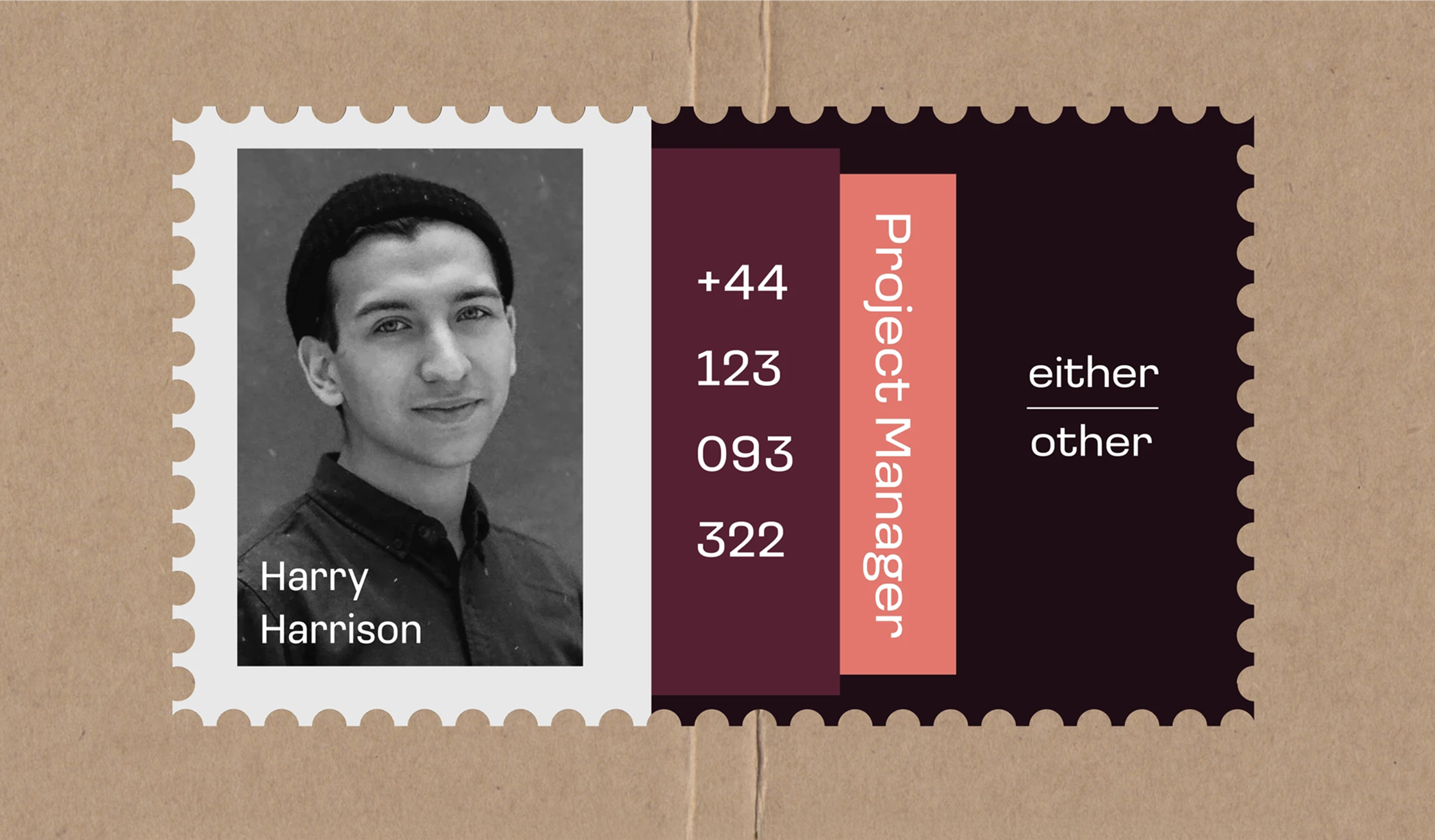
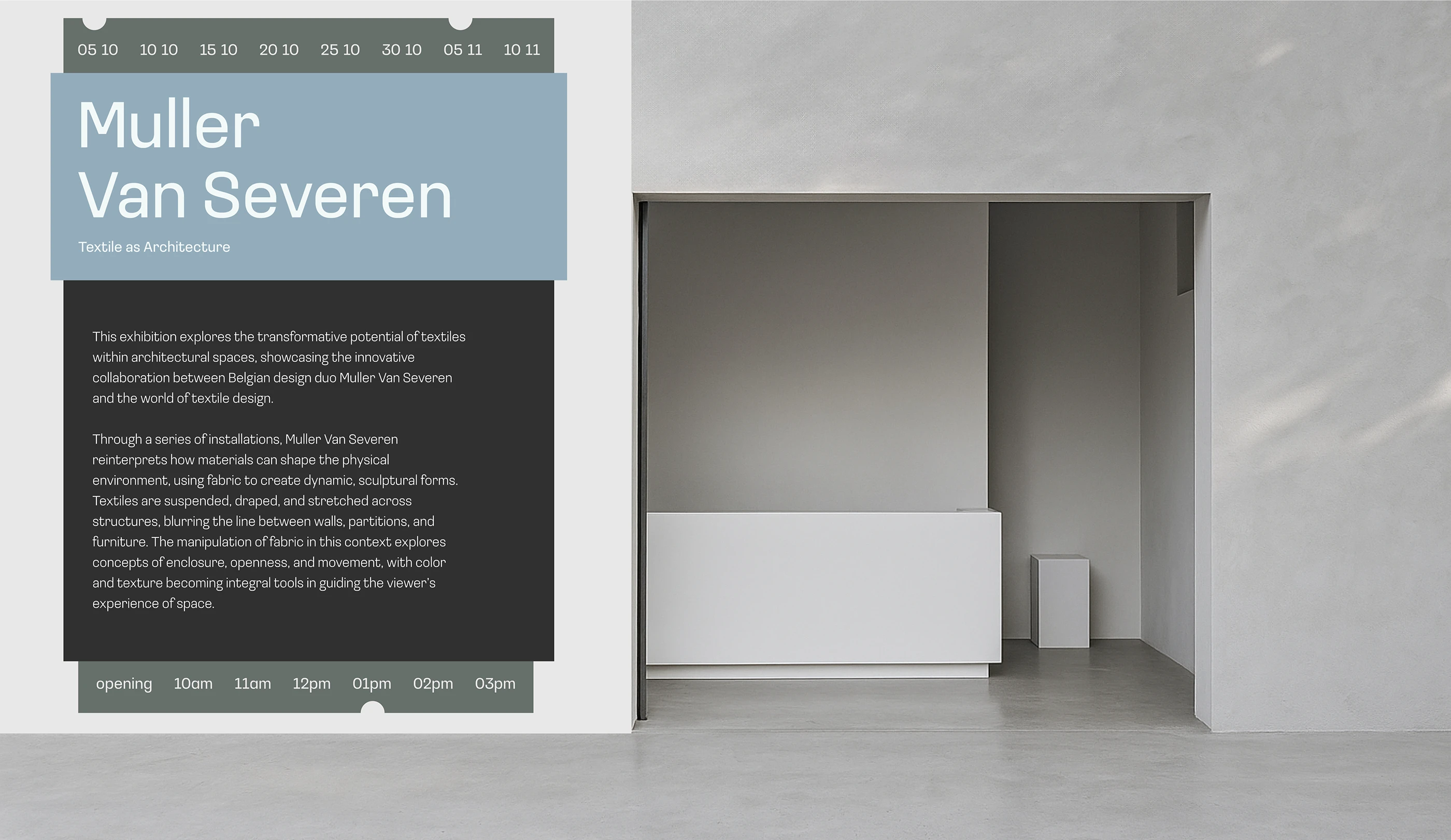
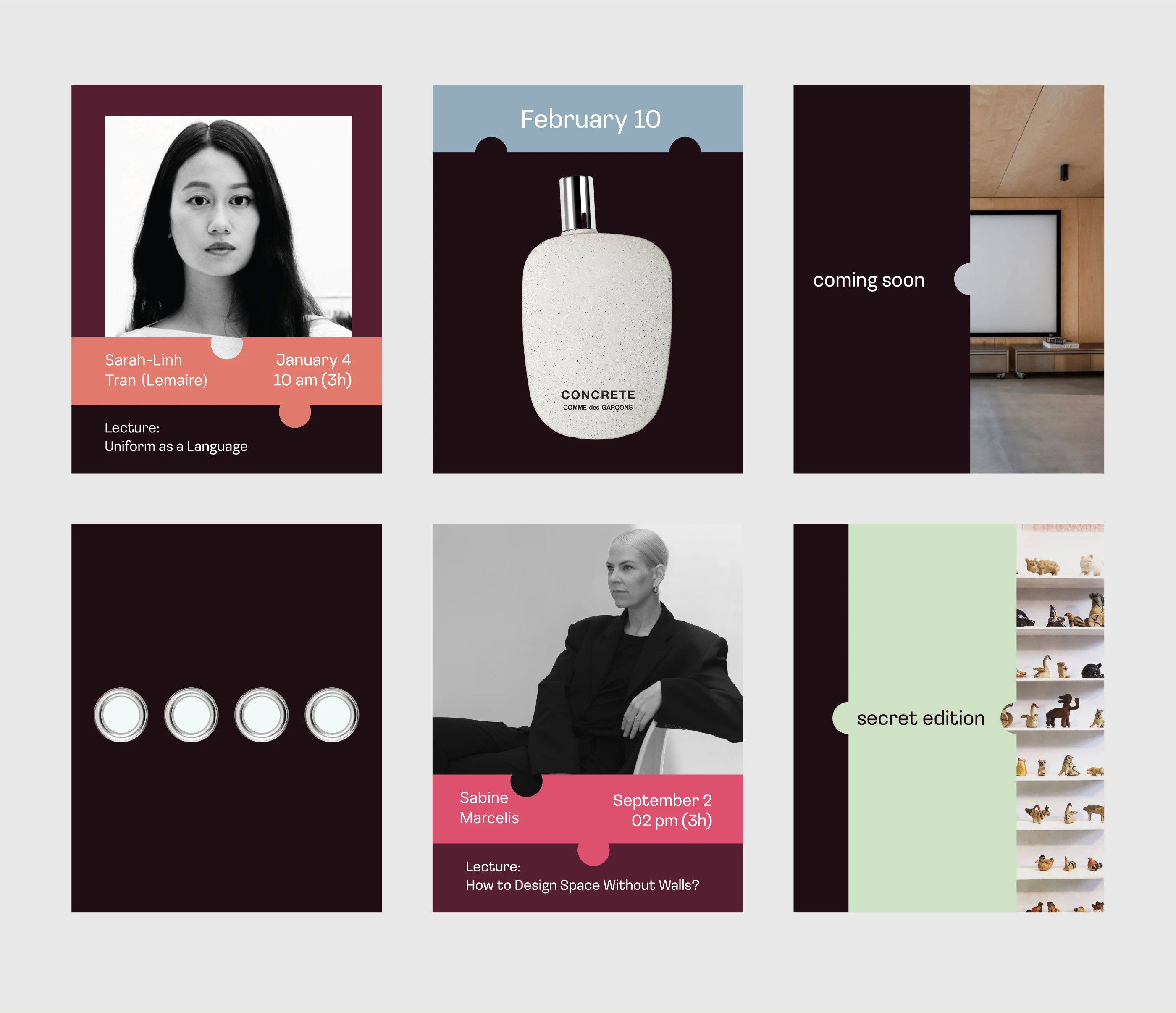
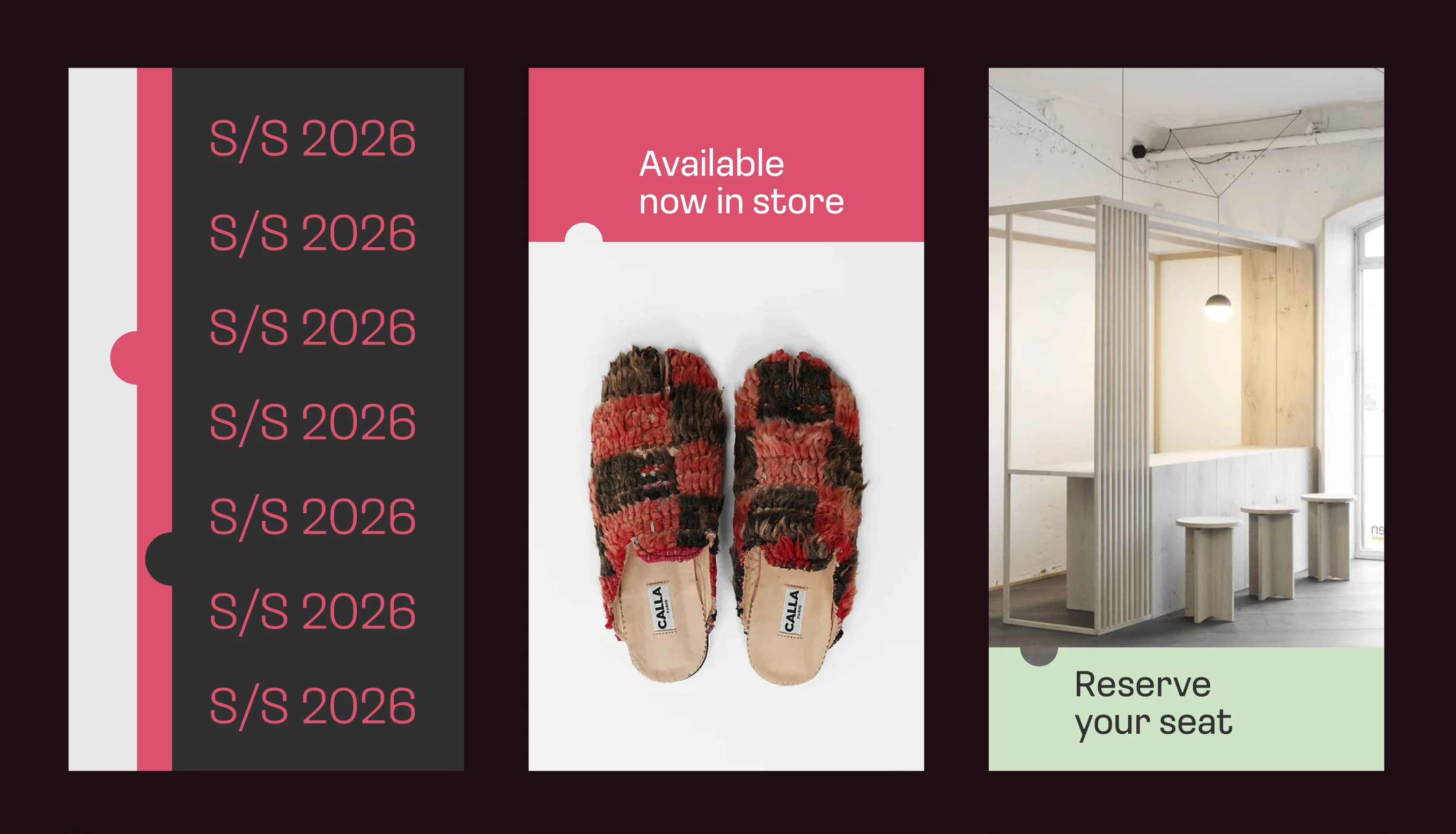
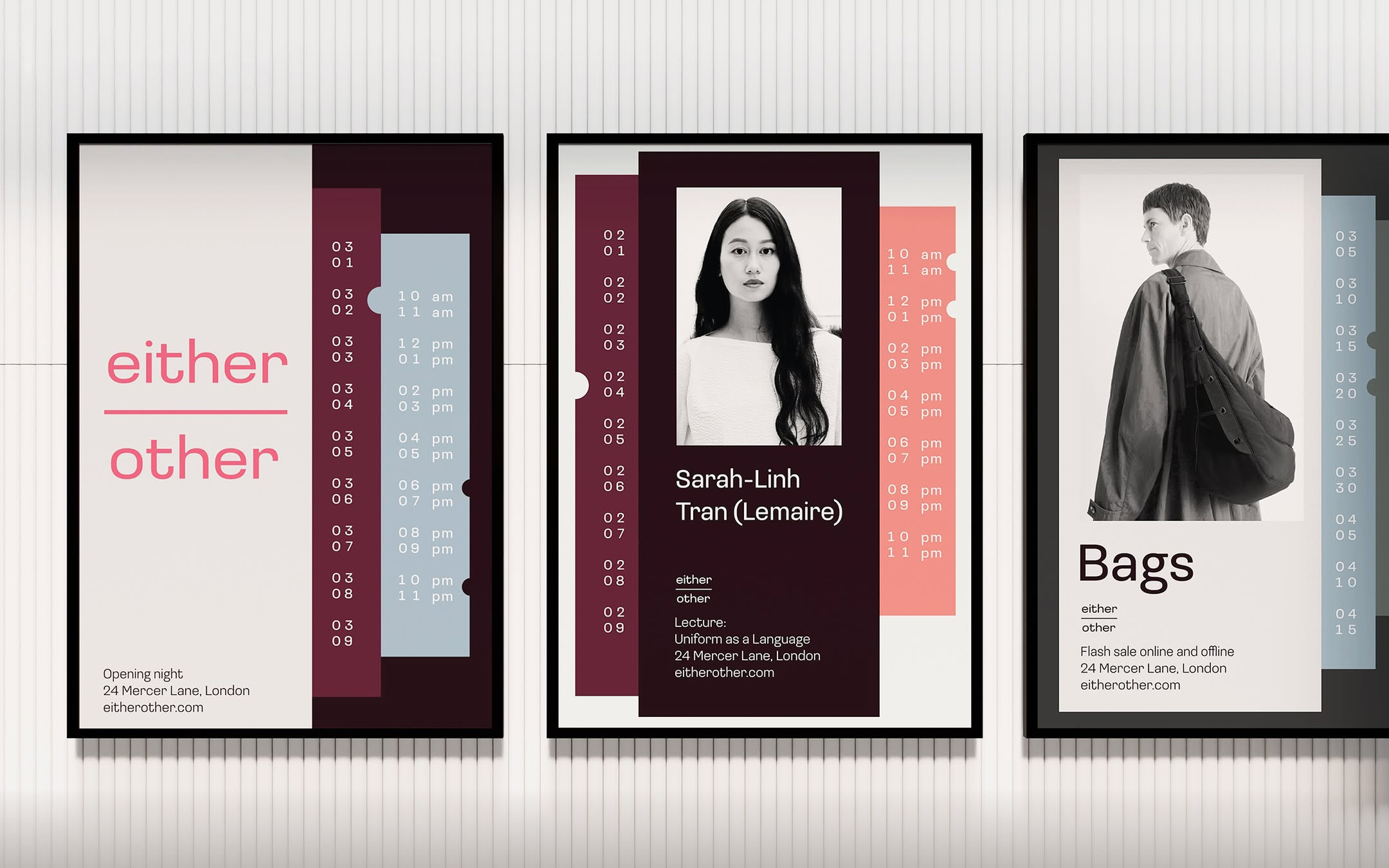
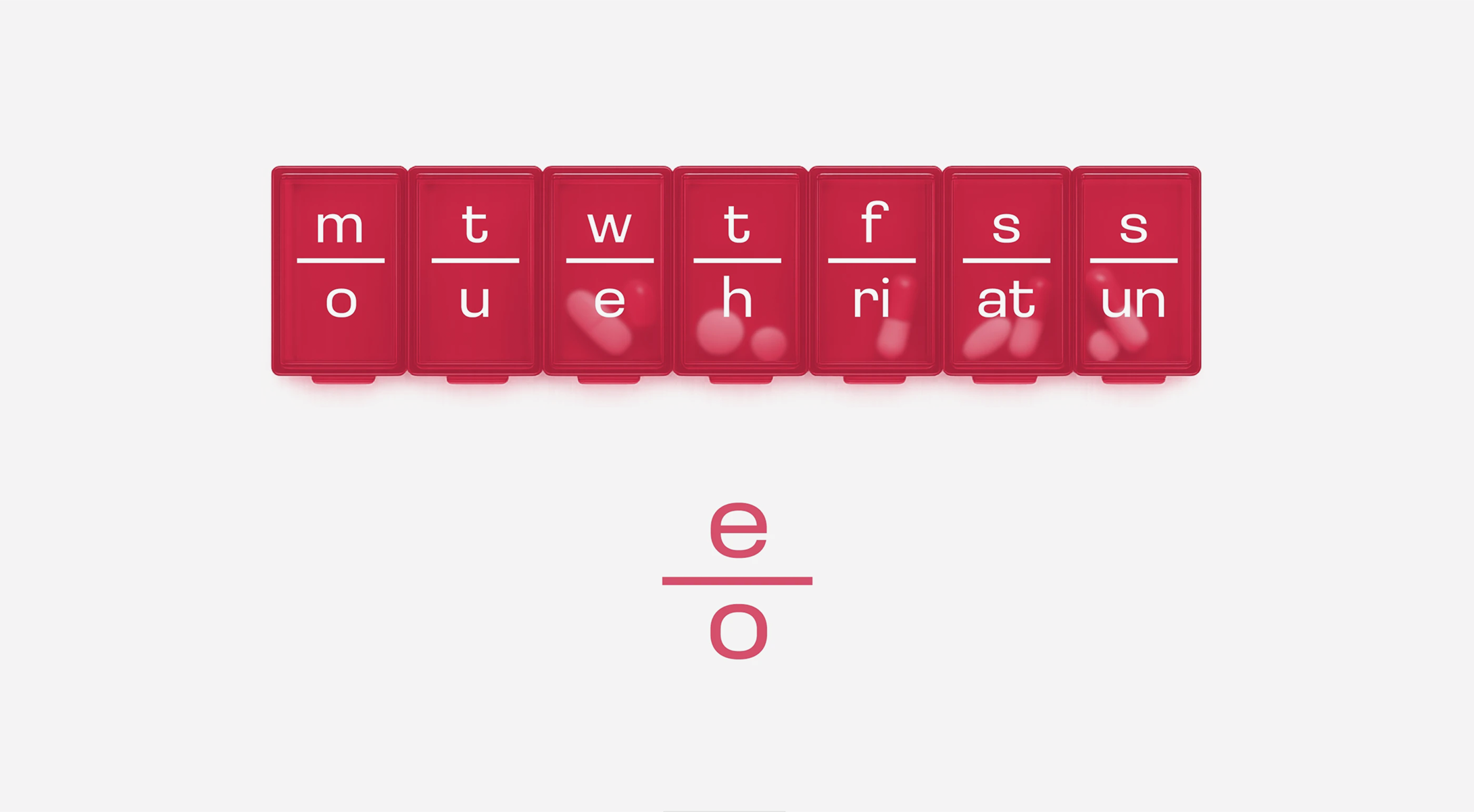
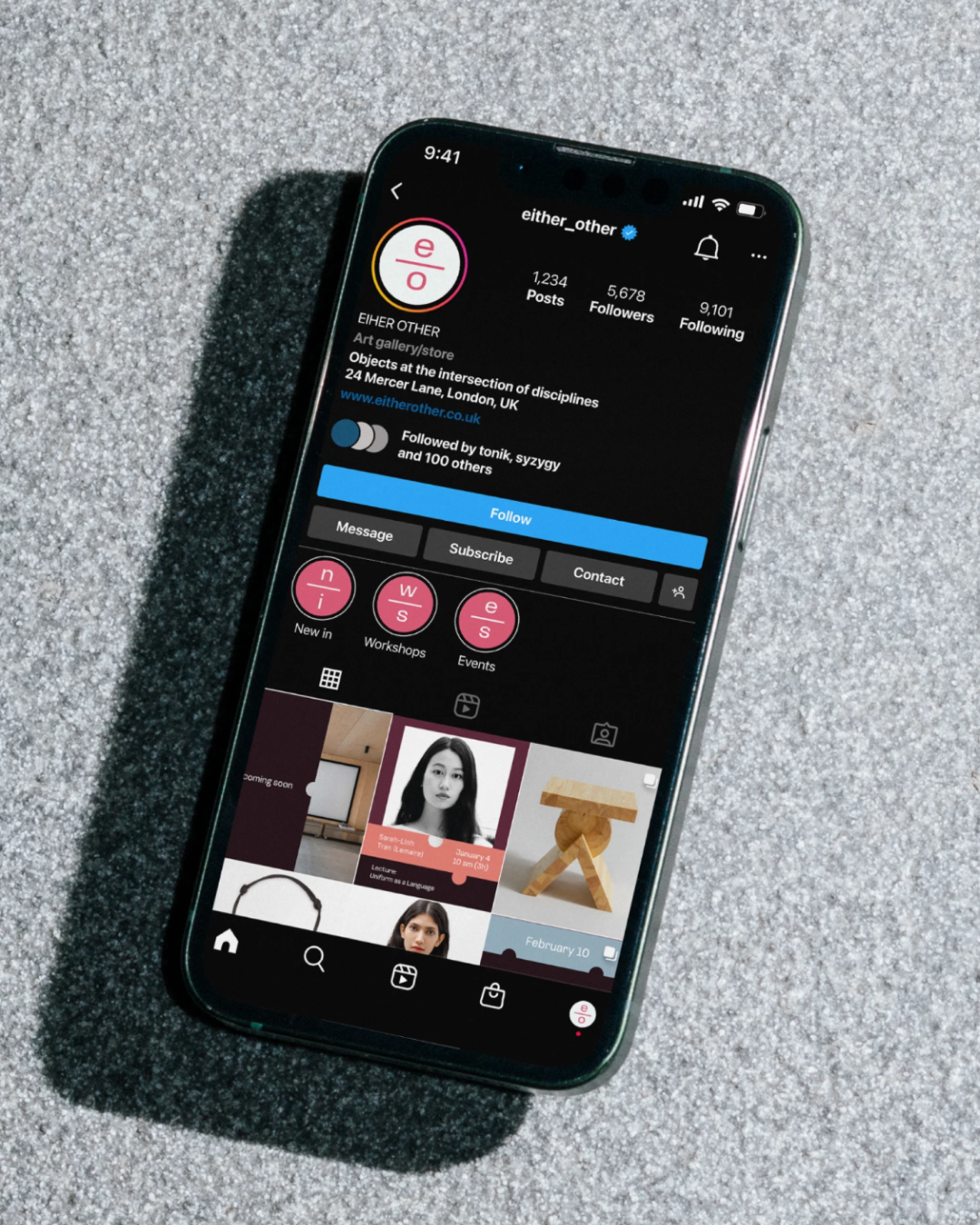
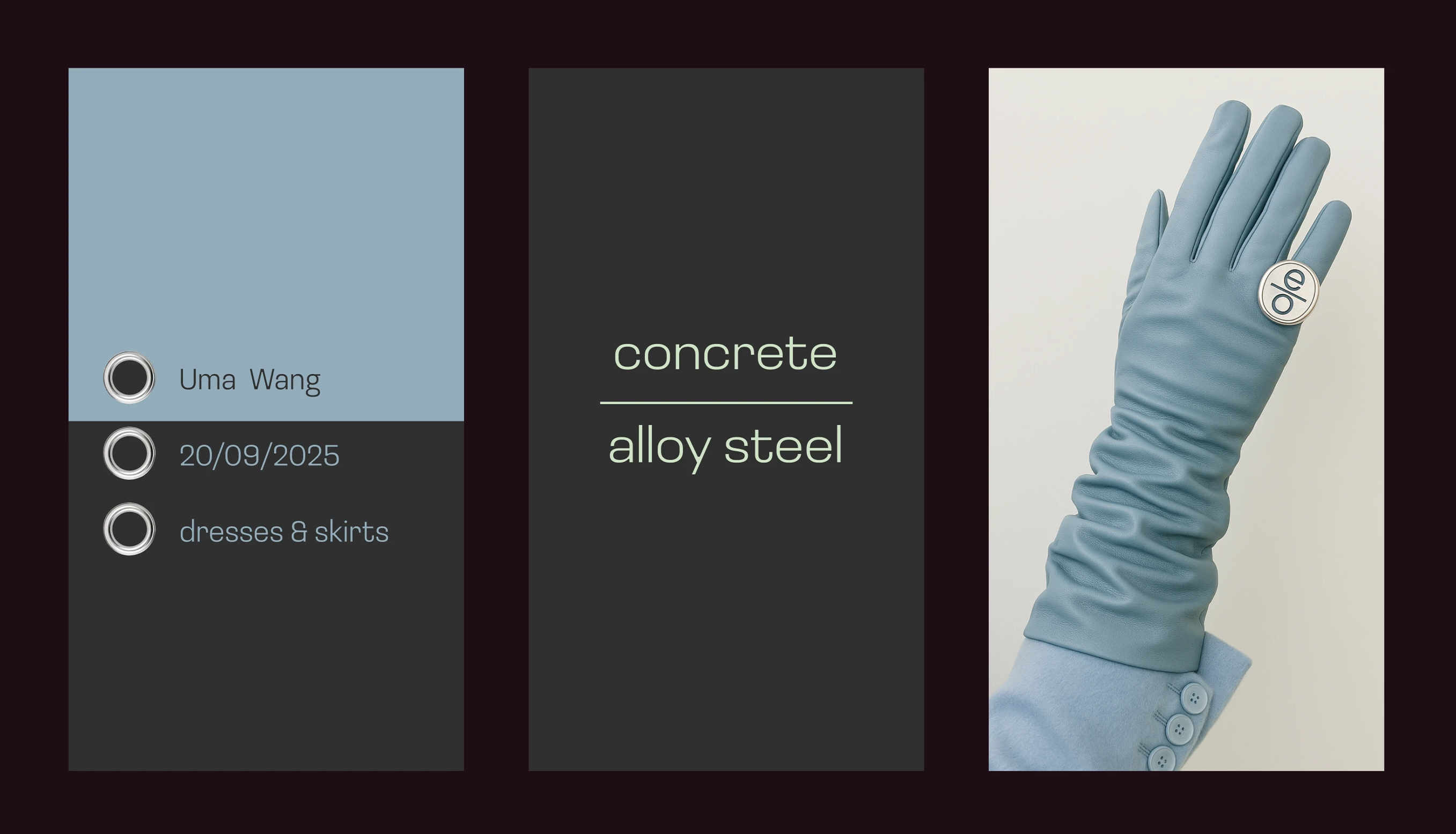
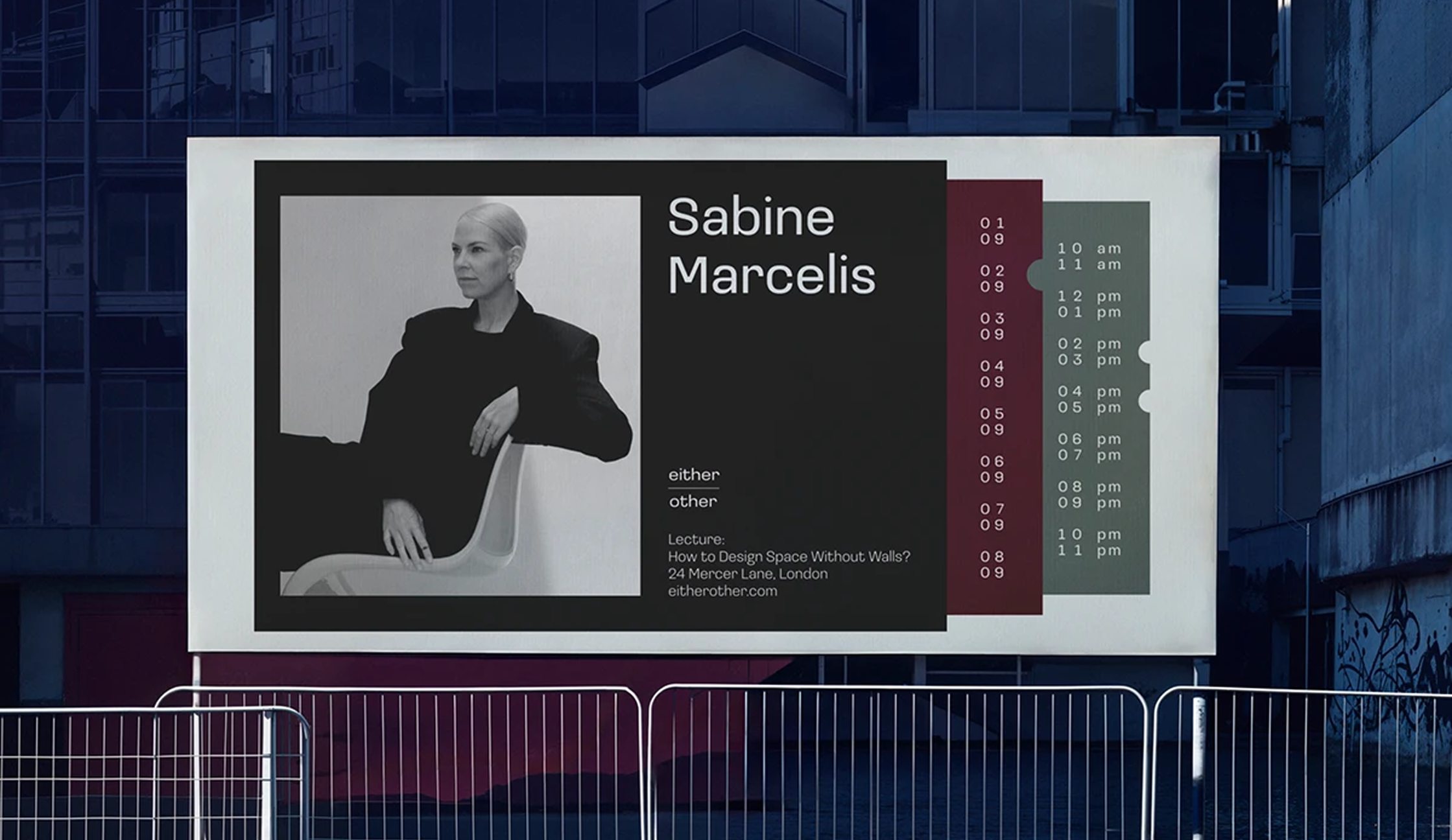
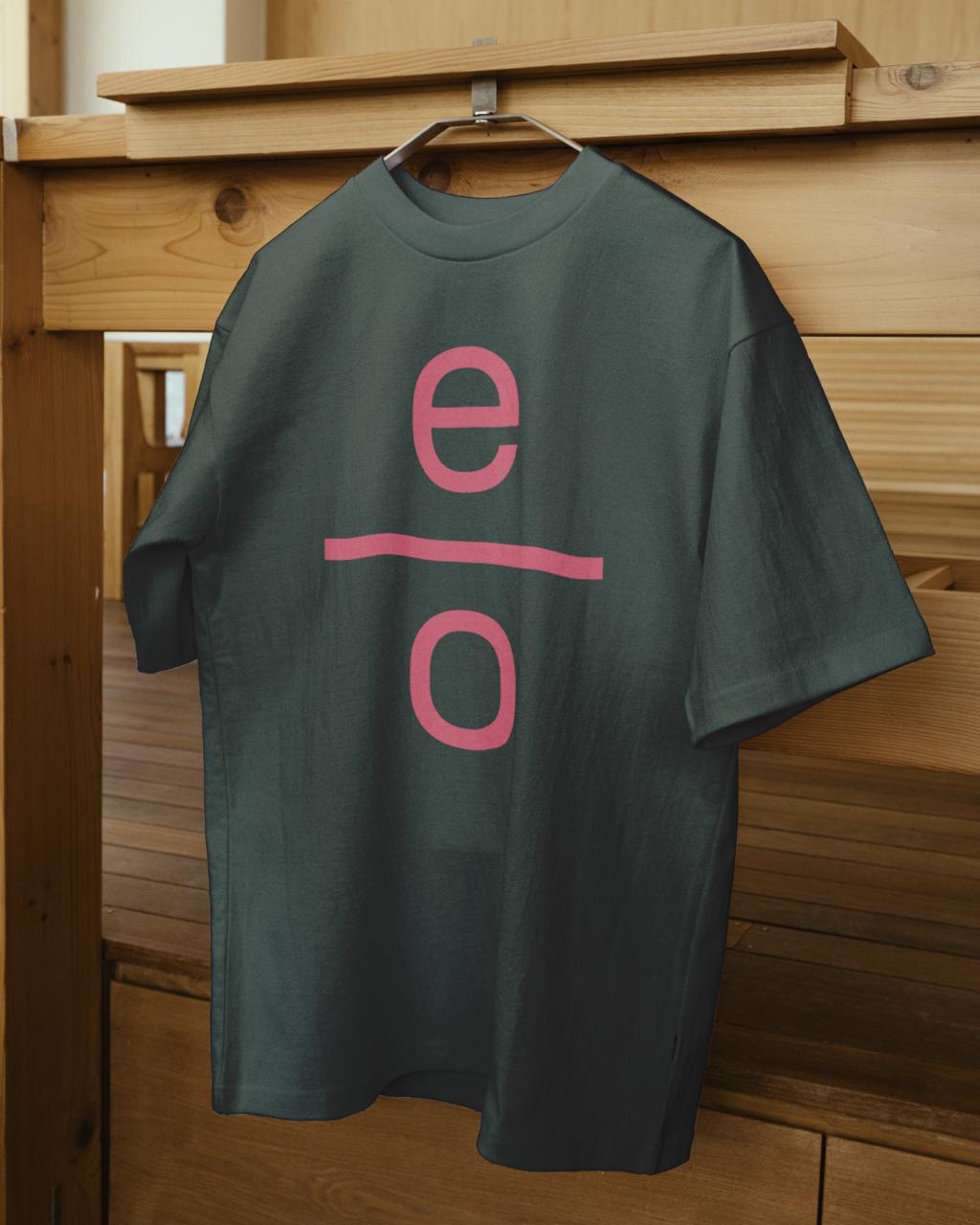
A closed-aperture sans serif typeface, Loos was developed based on the lettering on the cover of a book by Adolf Loos, ‘Why A Man Should Be Well-dressed: Appearances Can Be Revealing’. It comes in an impressive weight palette, ranging from Compressed to Extended and from Thin to Black, with simple yet distinctive structures and slight stroke contrast. The typeface supports Latin, Cyrillic, and Georgian.